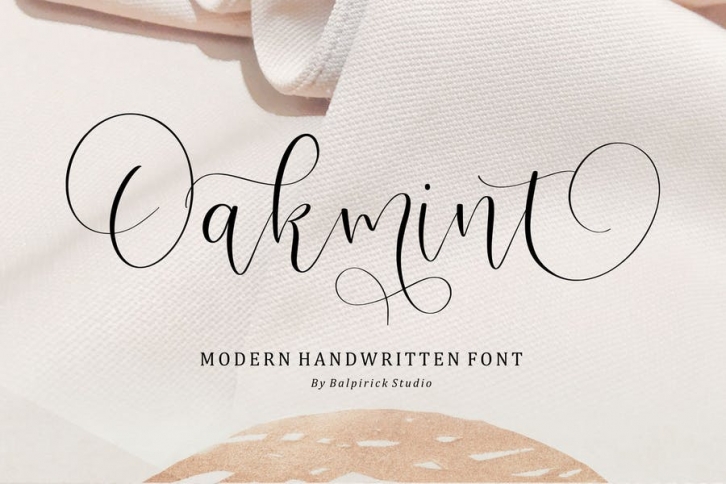
Introducing by Balpirick Studio.
Proudly Present, Oakmint Font.
Oakmint is a Modern Handwritten Font.
Oakmint is perfect for product packaging, branding project, megazine, social media, wedding, or just used to express words above the background.
Lowercase font Stylistic Alternates Ligatures Symbols & Punctuation OpenType Features.